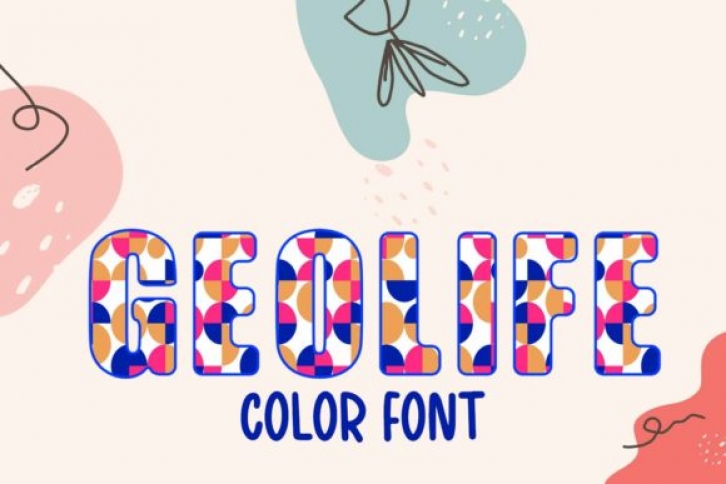
Geolife color font will take you back in time with its retro pattern of colorful circles that decorates each character. It is perfect for your next fun and playful design project such as flyers, invitations, greeting cards and so much more.